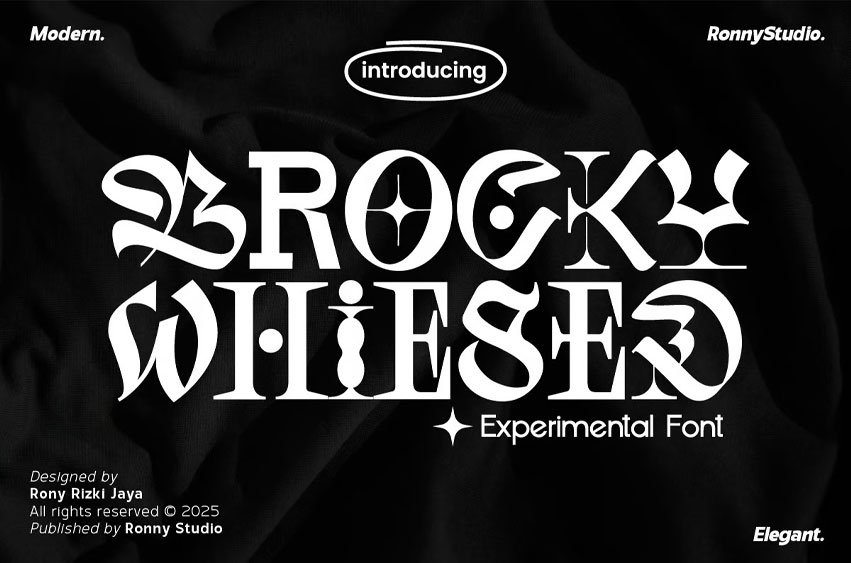
Brocky Whiesed Font
Brocky Whiesed Font is an experimental font designed with a modern, elegant, and artistic touch. This font blends classic elements with futuristic details, making it perfect for eye-catching designs.
Perfect for: Branding & Logo Design Posters & Album Covers Apparel & Merchandise Social Media & Digital Content Movie & Book Titles